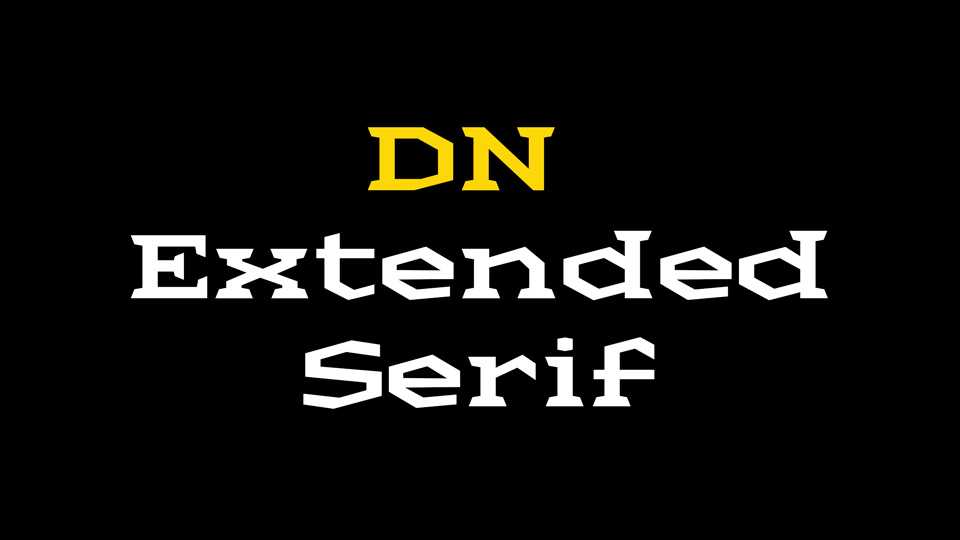
Download DN Extended Serif is a a modern slab serif with dynamic and irregular shapes. The font works best for display use, posters, headlines, websites, logos, signage, packaging and etc.
Designer: Daniel Nisbet